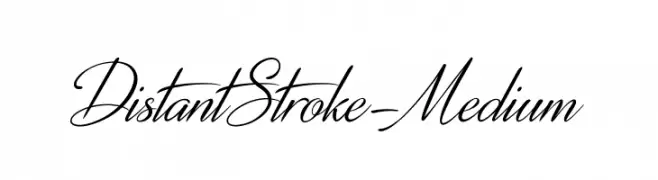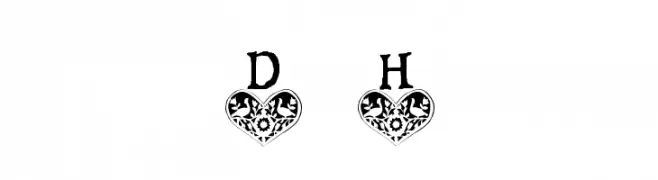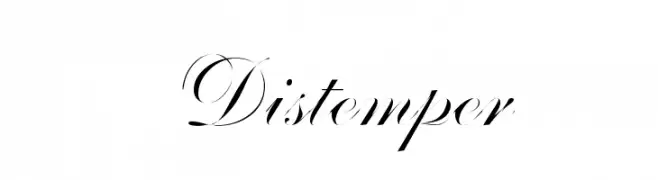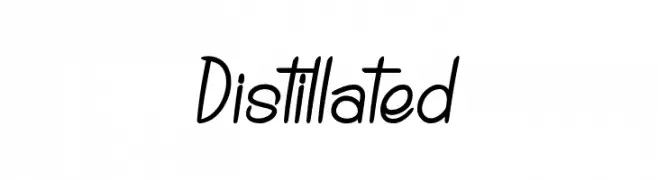
An elegant script font with flowing, interconnected strokes and a graceful appearance.
An elegant, high-contrast script font with a flowing, cursive style.
A decorative font with characters set within ornate heart shapes, combining serif elements with intricate designs.
A playful, casual handwritten font with smooth, flowing lines and a friendly aesthetic.